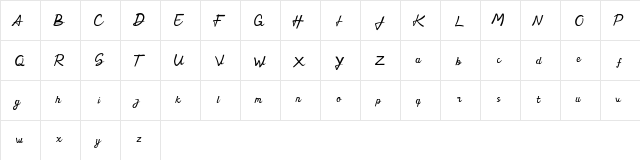
Hand Creation Personal Use Regular
Design Context for Hand Creation Personal Use Typeface
Hand Creation Personal Use flows with the natural rhythm of handwritten lettering, making it ideal for designs that call for warmth and personal expression.
Font Pairing: Combine Hand Creation Personal Use with a simple geometric sans for maximum contrast — the tension between flowing curves and clean structure is a classic typographic pairing.
Pro Tip: Use Hand Creation Personal Use for short runs of text — names, titles, or taglines. Extended body copy in script faces tires the eye quickly.